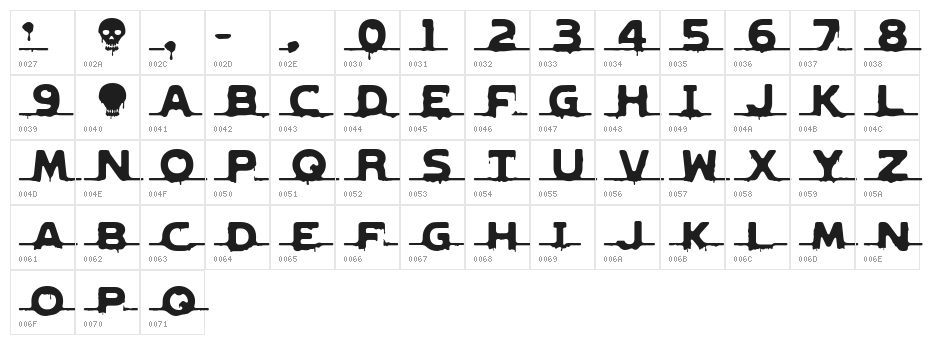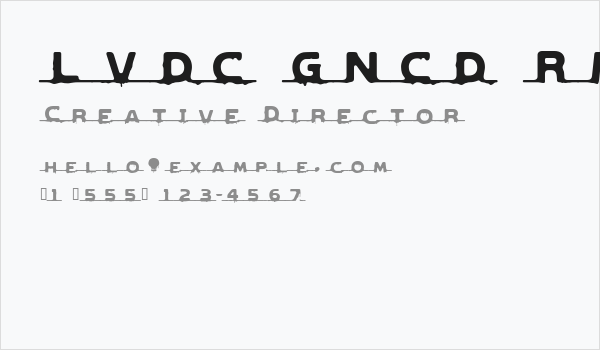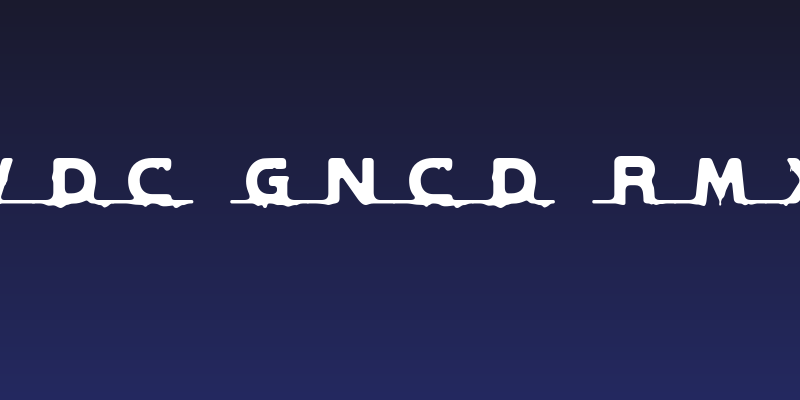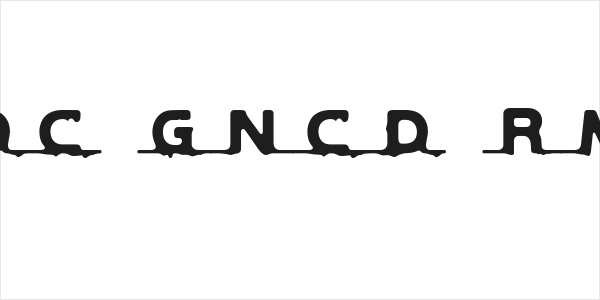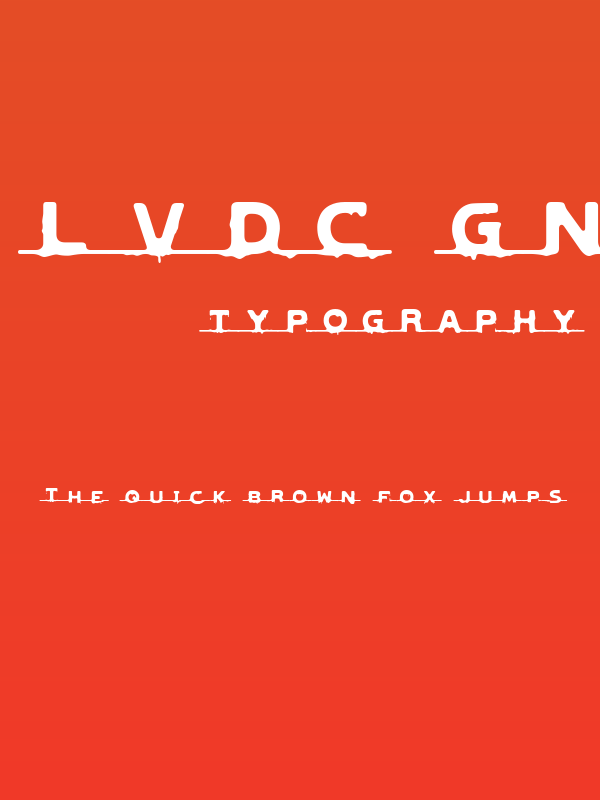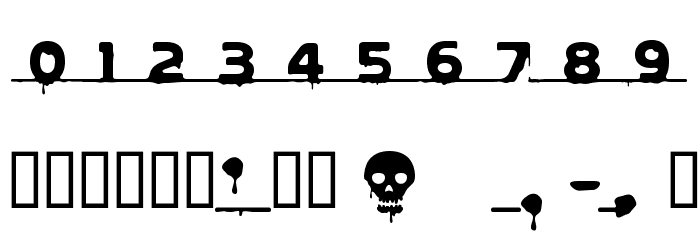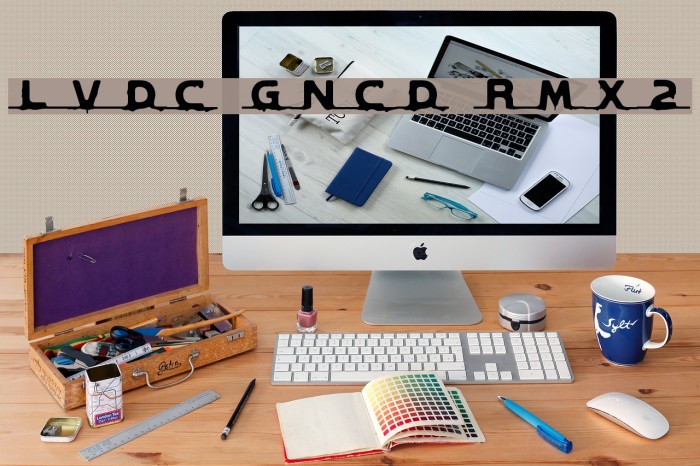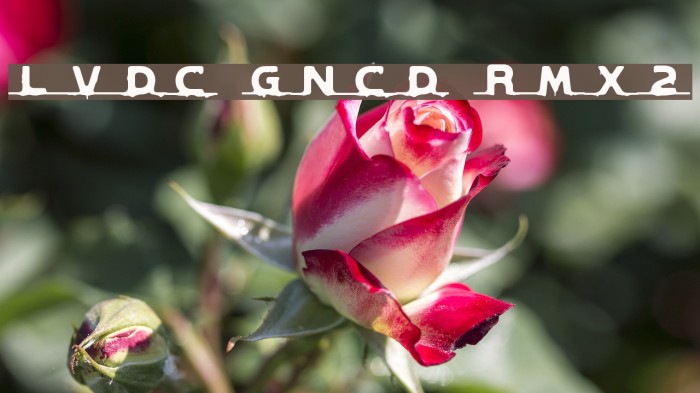
LVDC GNCD RMX2 Font
LVDC GNCD RMX2 Description
This font features a unique, dripping effect that gives it a spooky, horror-inspired aesthetic. The characters appear as if they are melting or bleeding, with each letter and number having a distinct, uneven baseline. The uppercase and lowercase letters maintain a consistent style, enhancing the eerie vibe. The numbers and special characters follow the same theme, with some symbols like the skull adding to the overall macabre feel. This font is perfect for Halloween-themed projects or any design that requires a touch of the grotesque.
| Proposed Projects | Ideal for Halloween invitations, horror movie posters, haunted house flyers, and spooky-themed merchandise. |